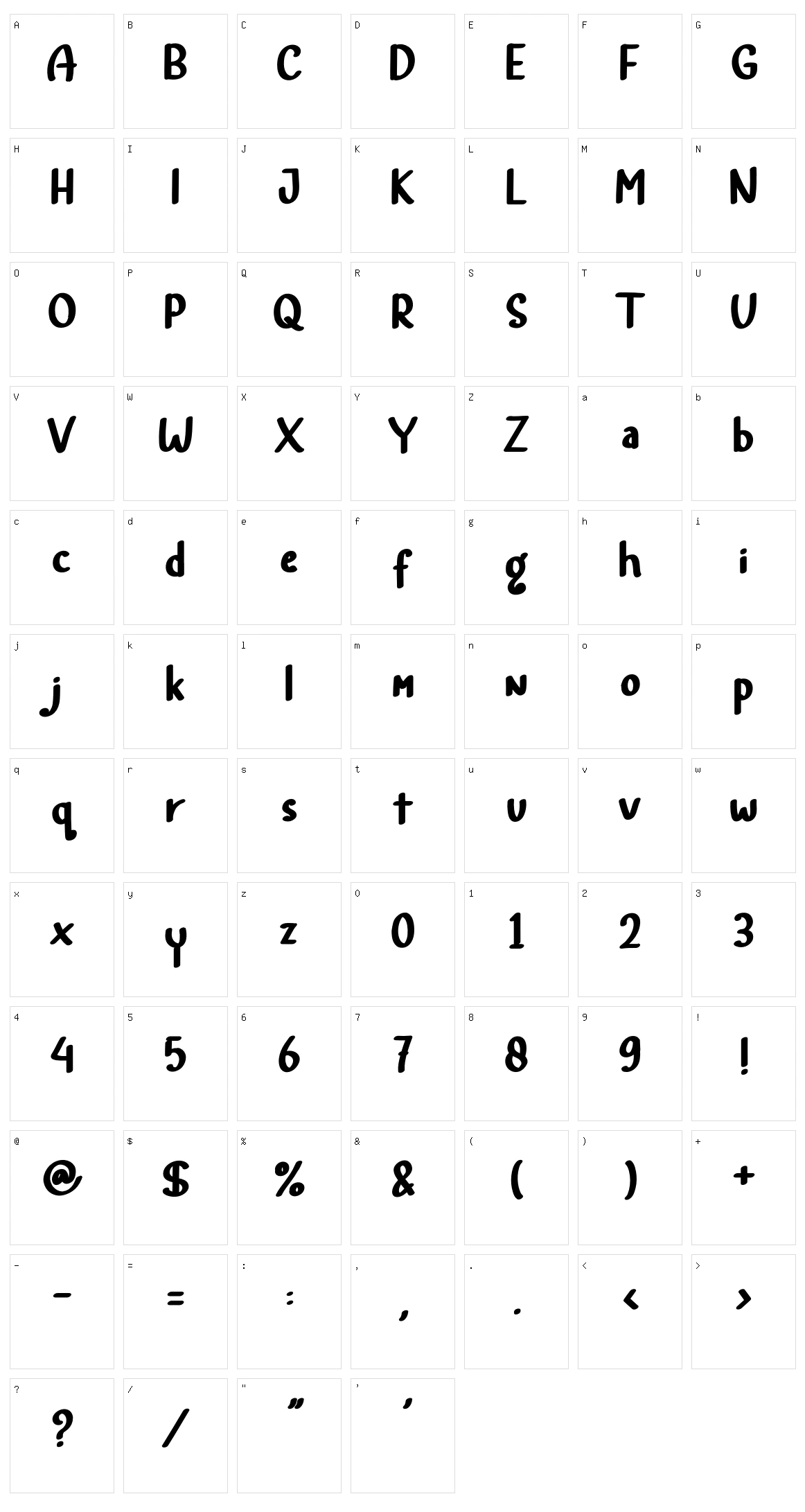
The free font Rainbow Land is carefully designed by Rantautype, showcasing a thoughtful balance of creativity and usability and falls under the Cartoon font style. When you download the ZIP file, it contains only 87.03 KB of font files, making it lightweight and quick to download. Please review the license details below to understand permitted usage and distribution rights. If license information is not available, we recommend using this font for personal projects only or contacting the author directly for commercial usage permissions.